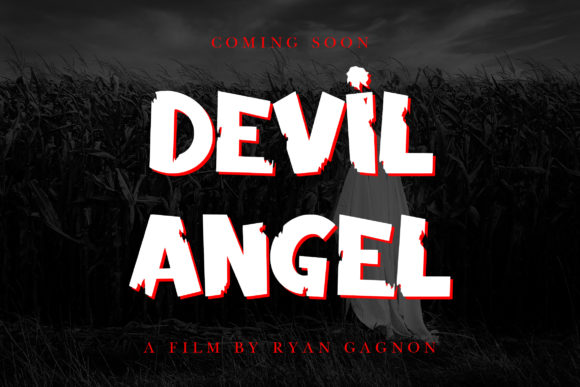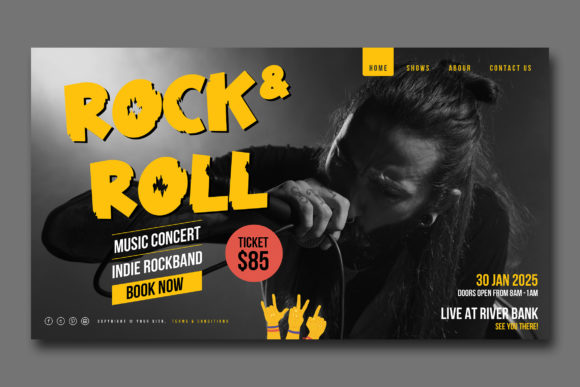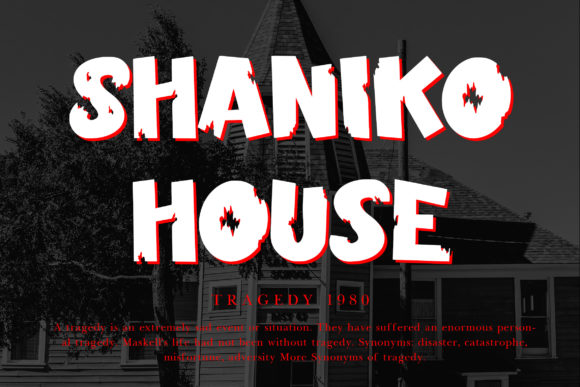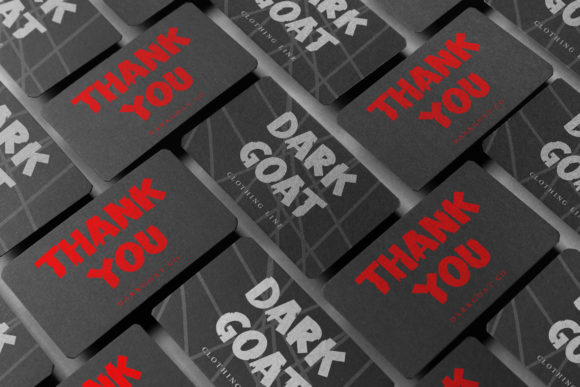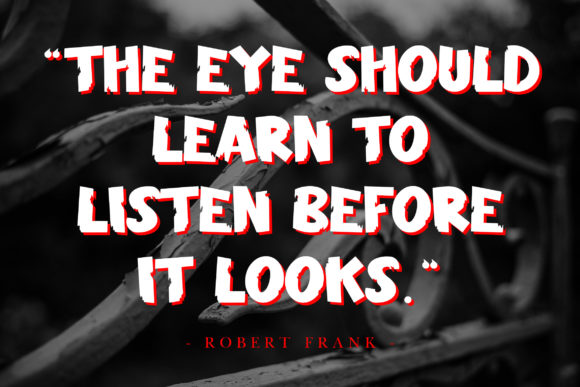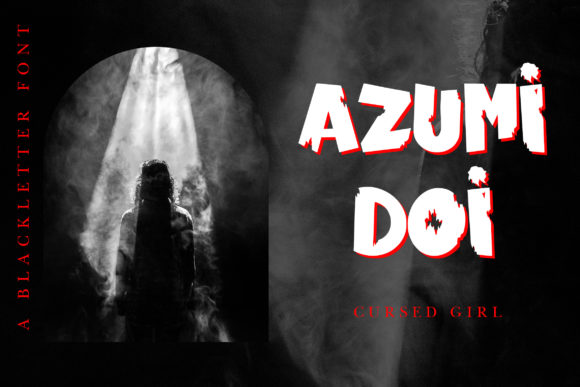
Introduction to Missing Soul Font Font
Fonts play a crucial role in design, and the Missing Soul Font font is a typeface that brings both character and versatility to any project. Whether you’re working on a branding project, a website, or a print design, the Missing Soul Font font offers a unique style that can elevate your work.
Missing Soul is a thick lettered and bold display font that is inspired by gothic and horror vibes.
Key Features of Missing Soul Font Font
Why Choose Missing Soul Font Font?
The Missing Soul Font font is more than just a typeface – it’s a design tool that helps you communicate your message with style and clarity. Its unique character set and versatile design make it suitable for a wide range of applications, from elegant invitations to bold headlines.
With its carefully crafted letterforms and balanced proportions, the Missing Soul Font font ensures readability and visual appeal across all mediums.
What makes Missing Soul Font font special?
The Missing Soul Font font stands out with its unique design, exceptional readability, and versatility across various design applications.